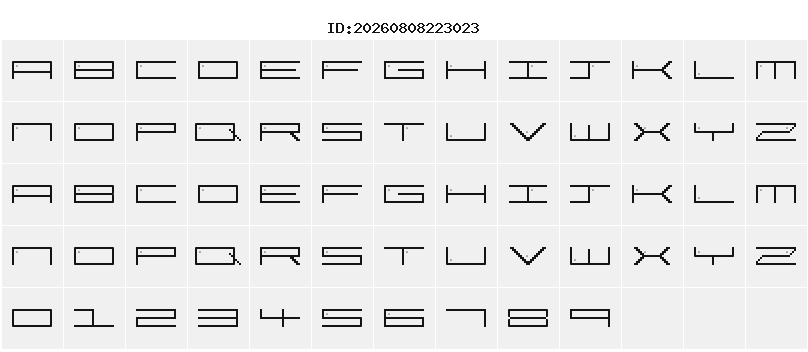
• Font Name: Pixel Star
• Designer: LewieLewieLew74
• Description: “Pixel Star” was built with FontStruct
About Pixel Star.ttf
Pixel Star.ttf is a modern, elegant sans-serif font designed for ultimate readability and visual harmony. Perfect for branding, headlines, web design, and print materials.